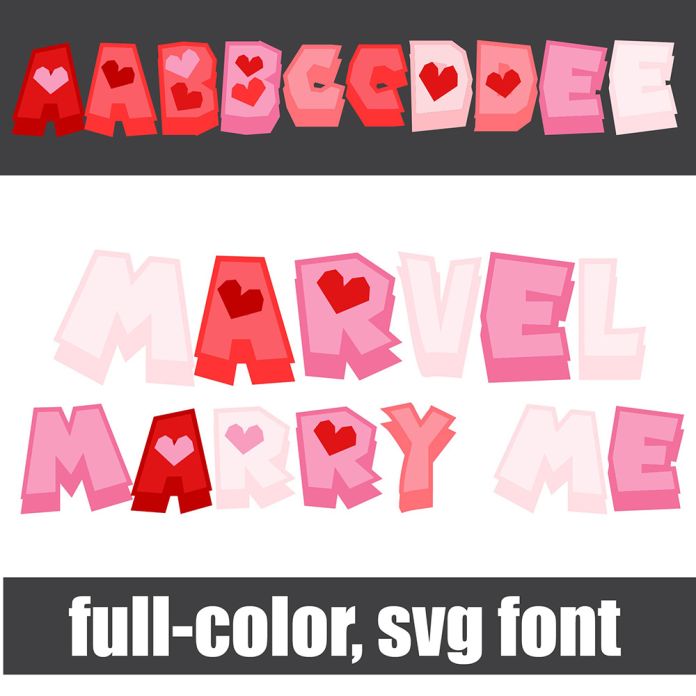
This full-color font features a video-game style font with a 3d shadow and hearts. There is an alt case with an additional color of each letter. This font works best for titles, displays, posters and more. Please note color fonts will show as black in non compatible programs. This font type is compatible with Silhouette Studio.